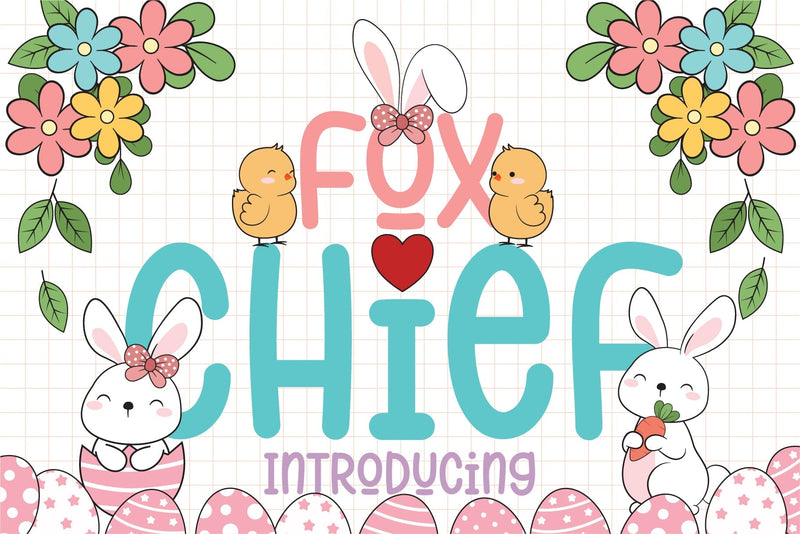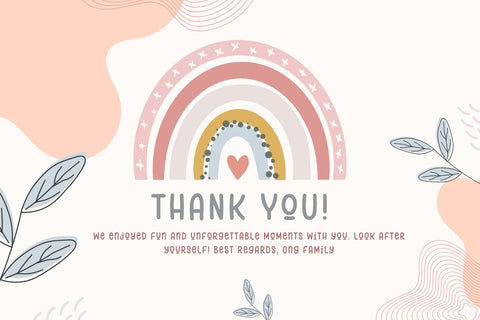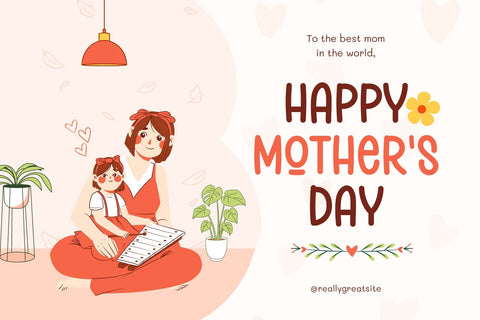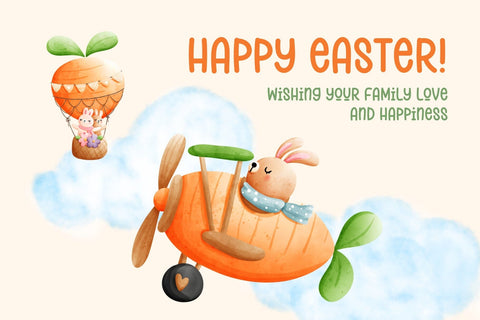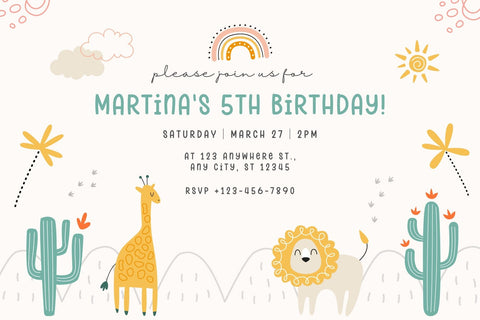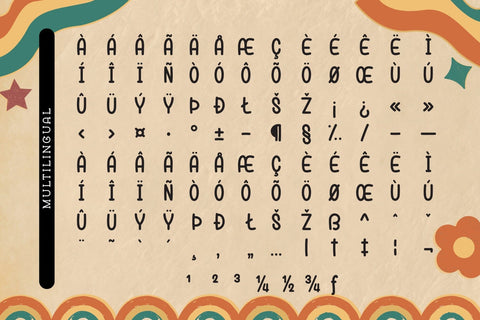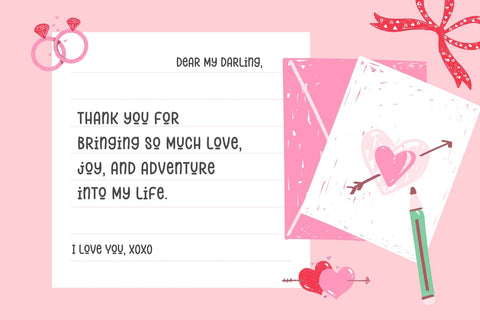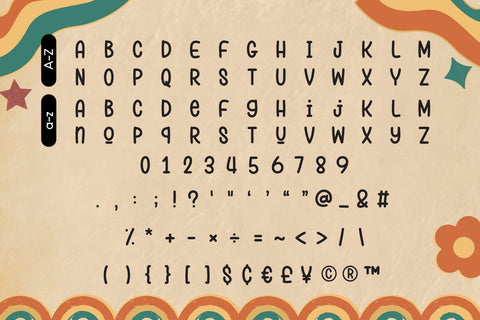
Fox Chief Font
Fox Chief Font is a unique and playful handwritten slab serif font that features a charming combination of cute, fun, and cool elements. This font is perfect for various creative projects such as quotes, headings, blogs, logos, invitations, and more!